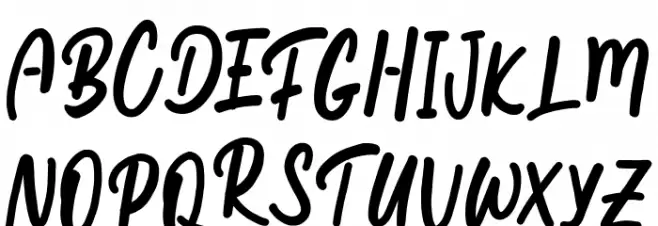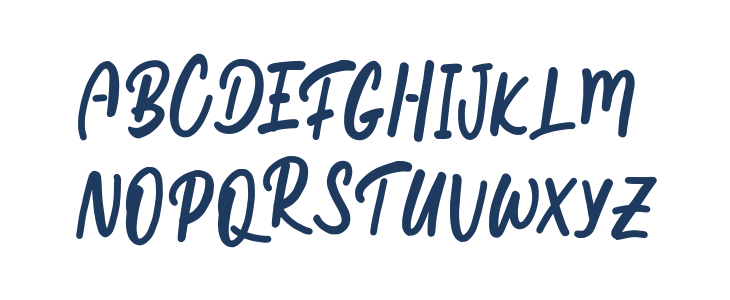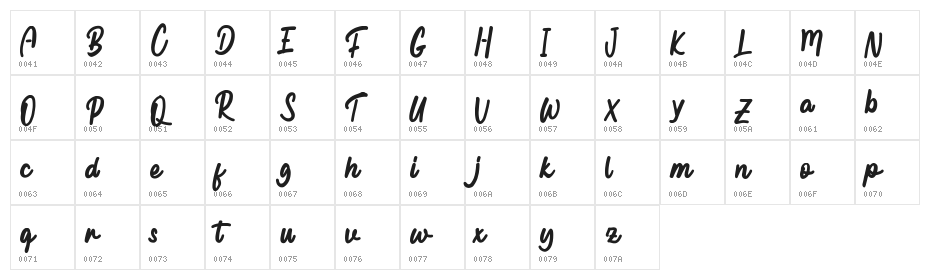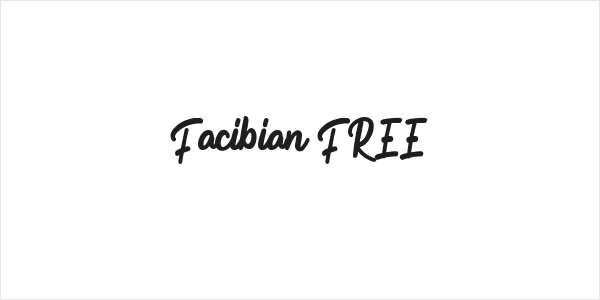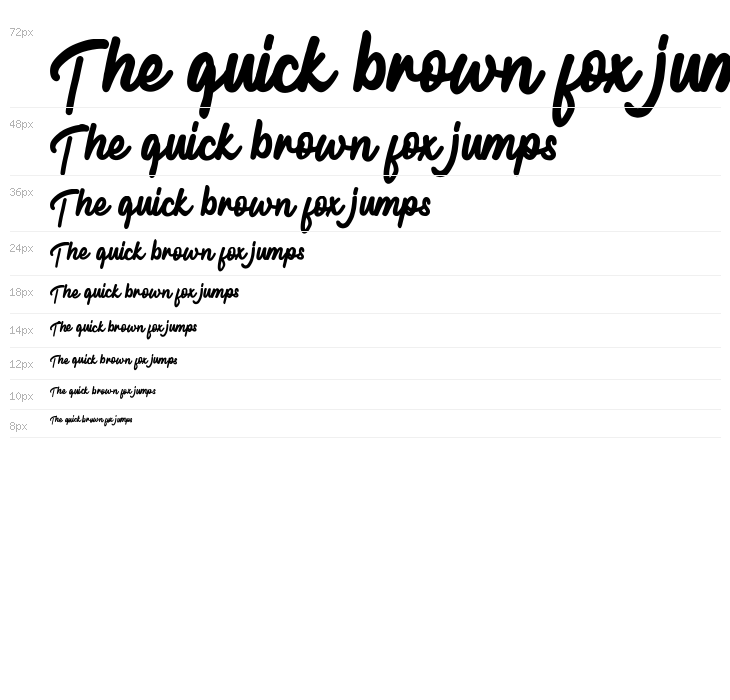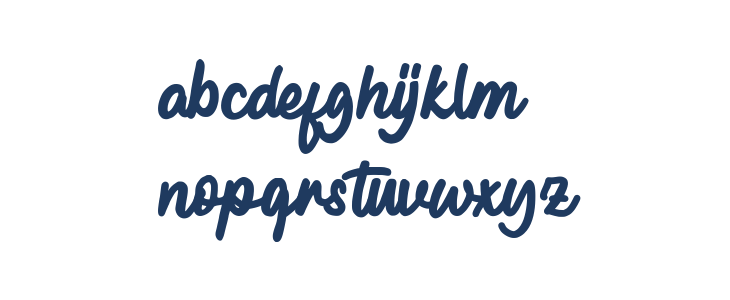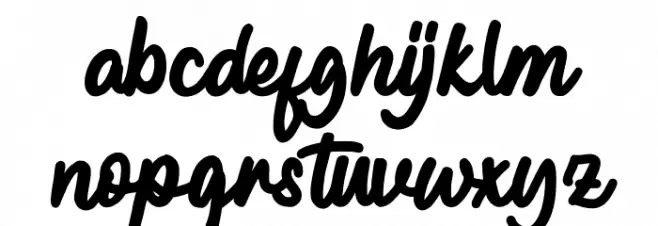
Facibian FREE Font
Facibian FREE Description
A playful, handwritten script font with smooth, rounded strokes and a casual, energetic feel. The letters are slightly slanted, mimicking natural handwriting, and feature consistent stroke thickness with open counters and a friendly appearance.
| Overall Style | Casual, Playful, Handwritten |
| Use Case | Logos, Headlines, Informal body text, Social media posts |
| Proposed Projects | Greeting cards, invitations, posters, branding for creative businesses, social media graphics. |